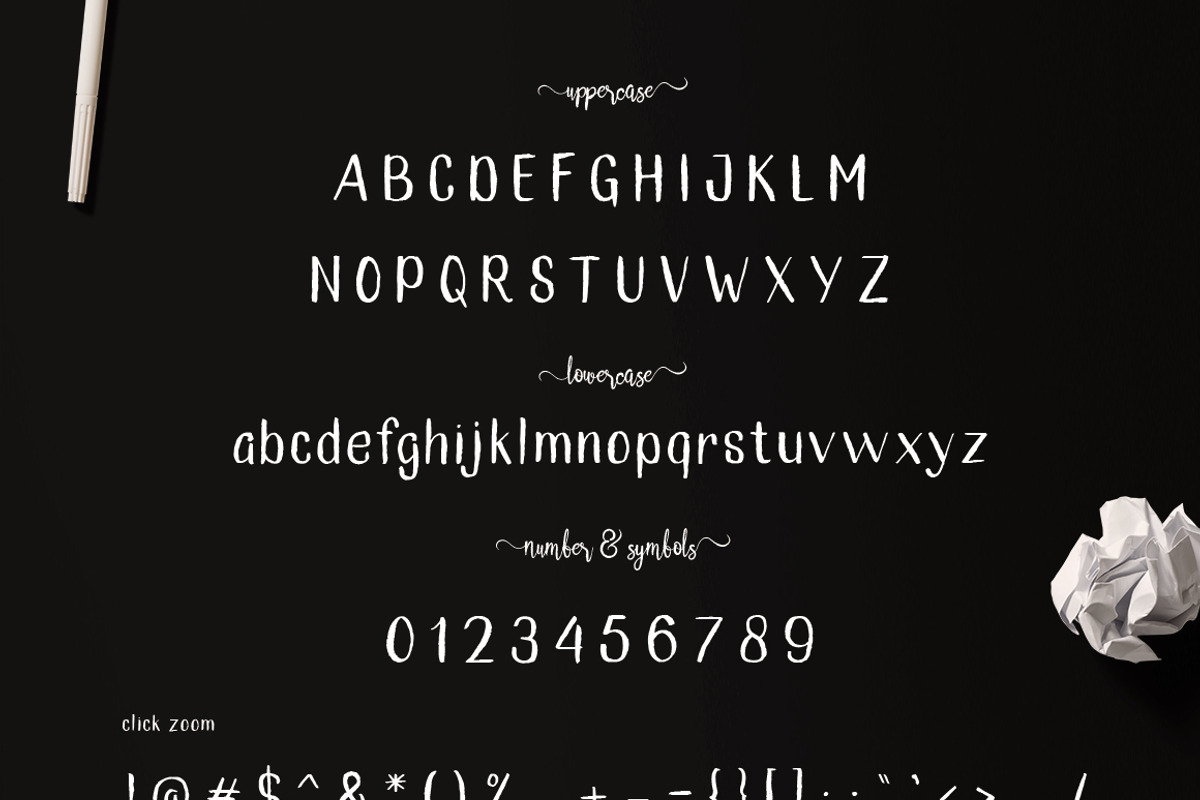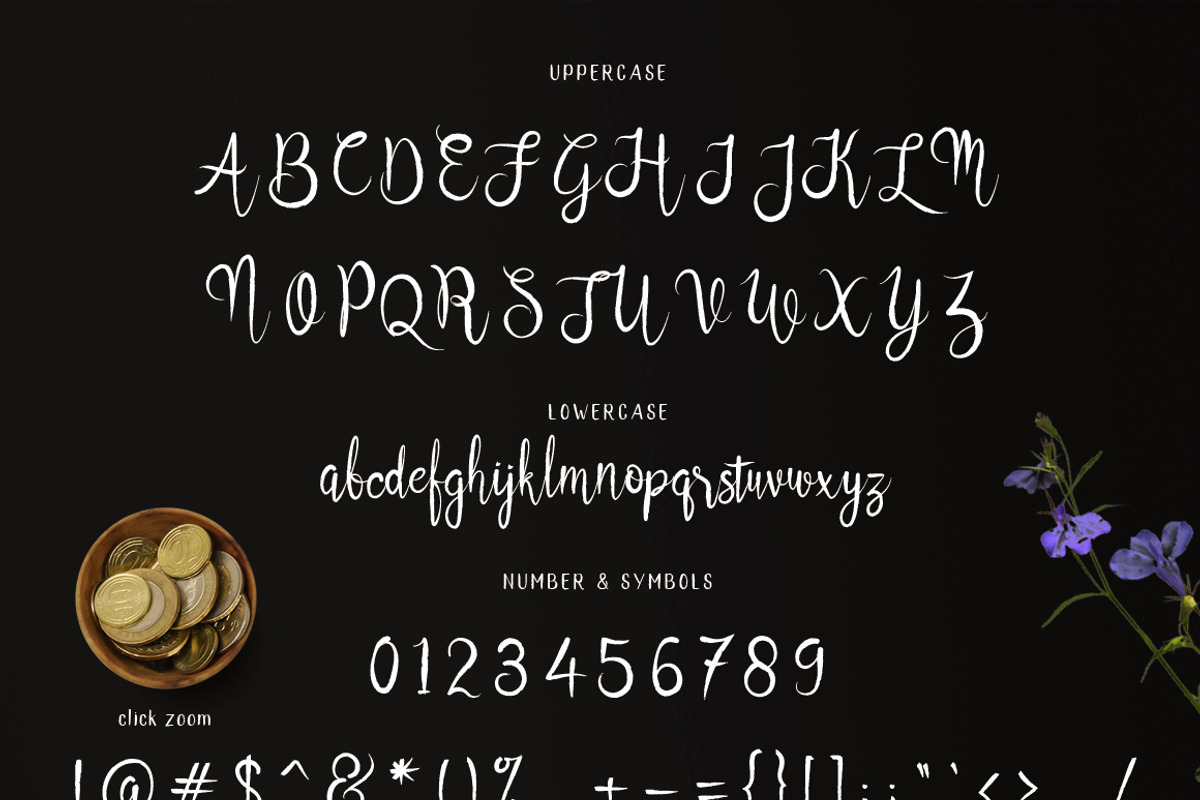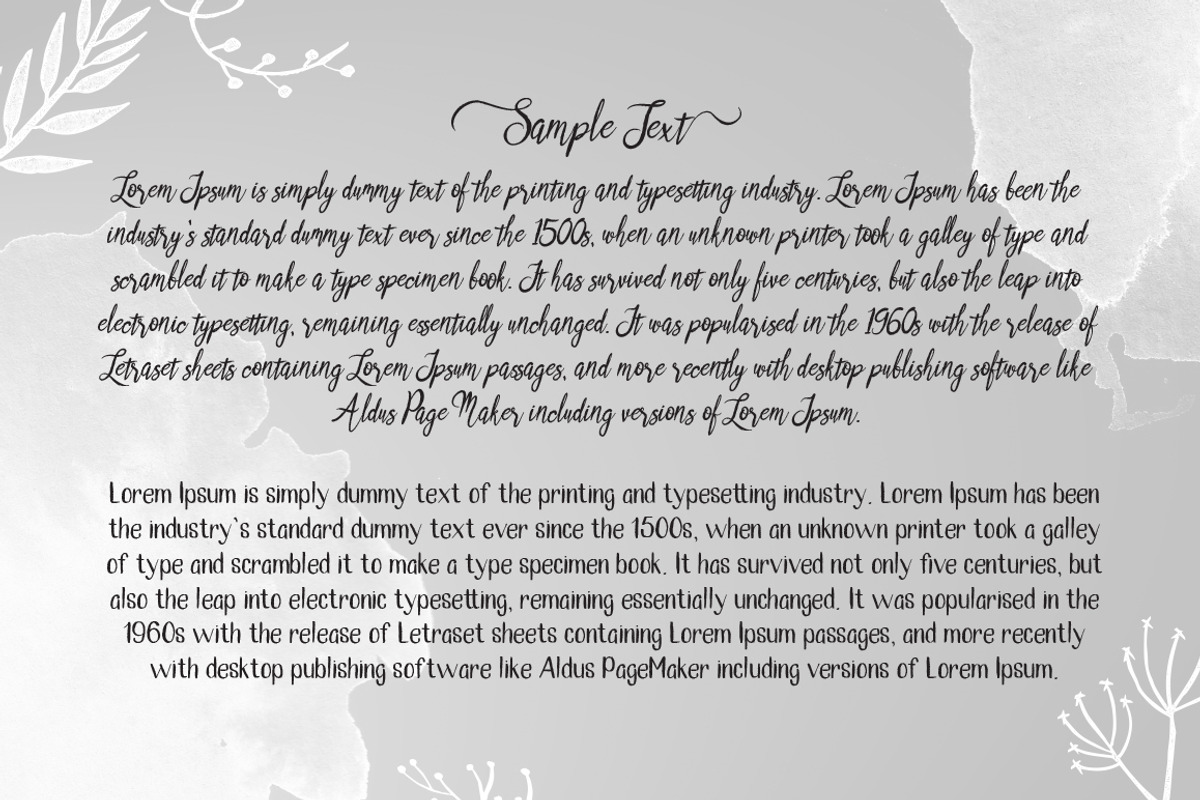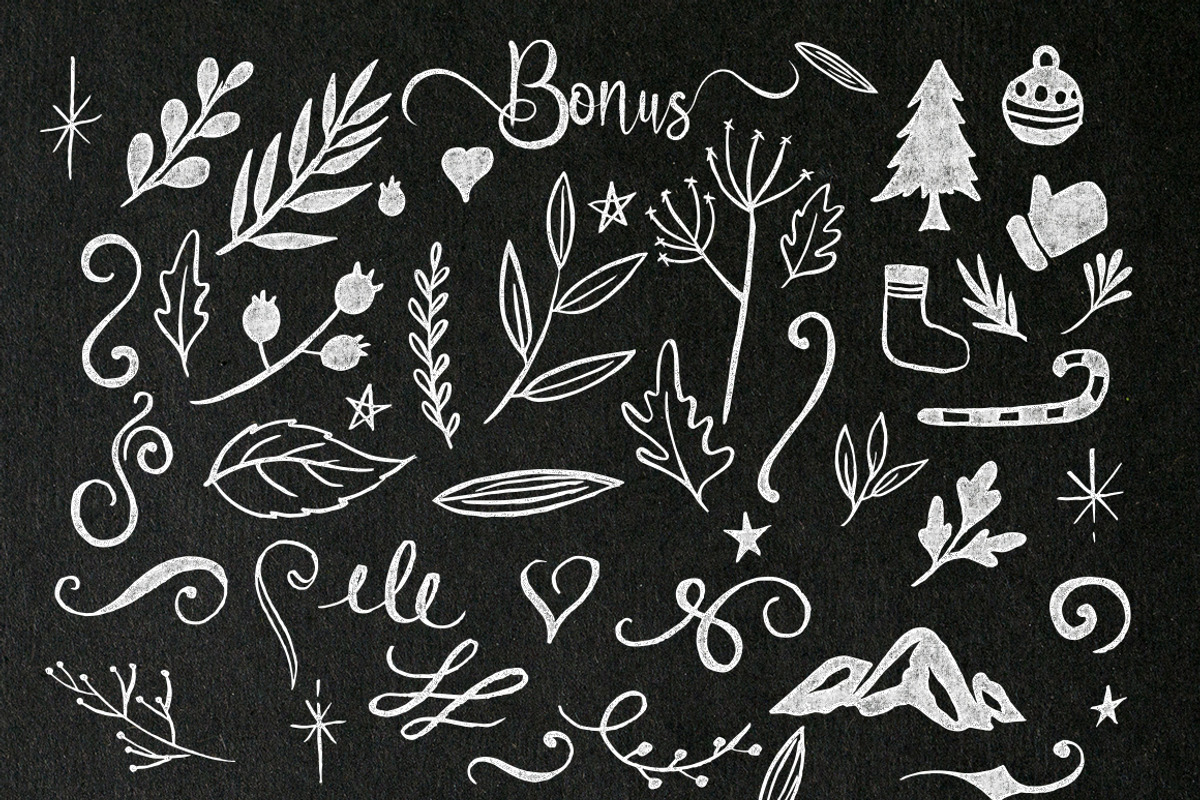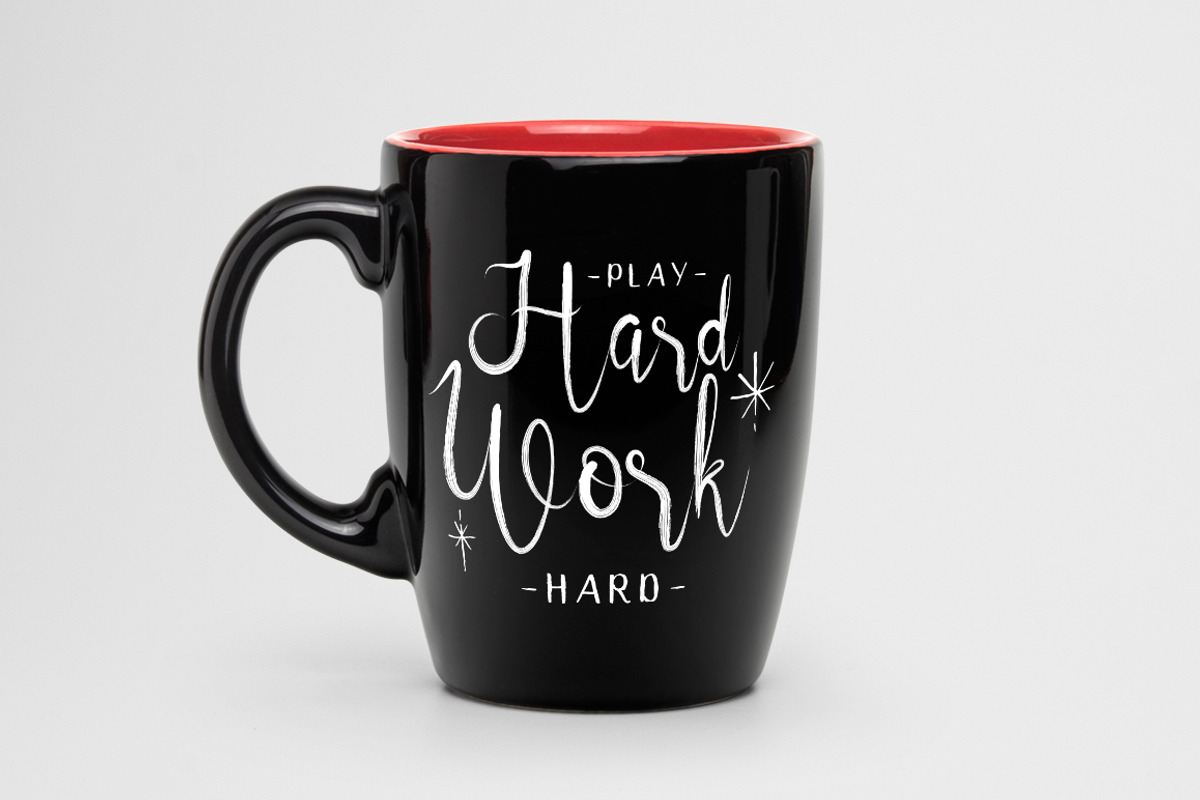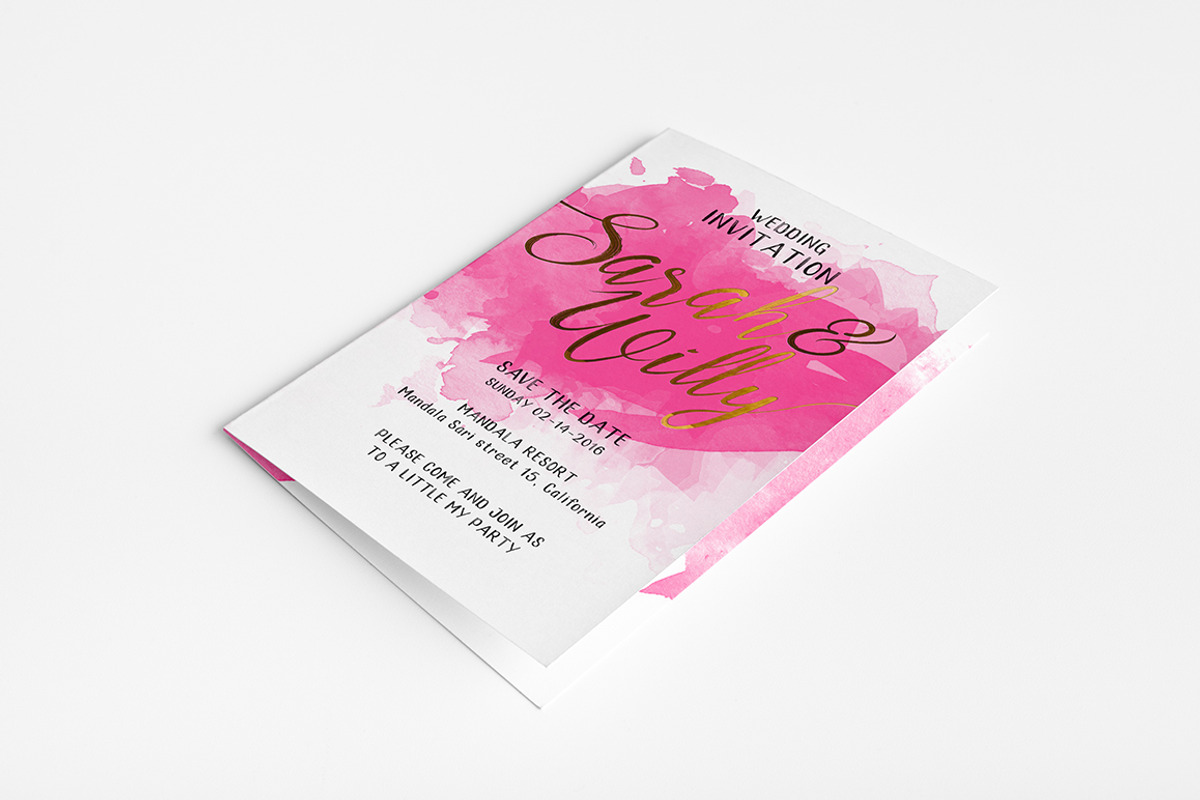
Vroffloow family Typeface
Vroffloow family Typeface by alit design is a font selected for branding, posters, packaging, typography.
- Not only that, you also get italic character of this font beside regular character with in this font package.
Why Vroffloow family Typeface is worth a look
Vroffloow family Typeface by alit design fits naturally into Branding, posters, packaging, typography.